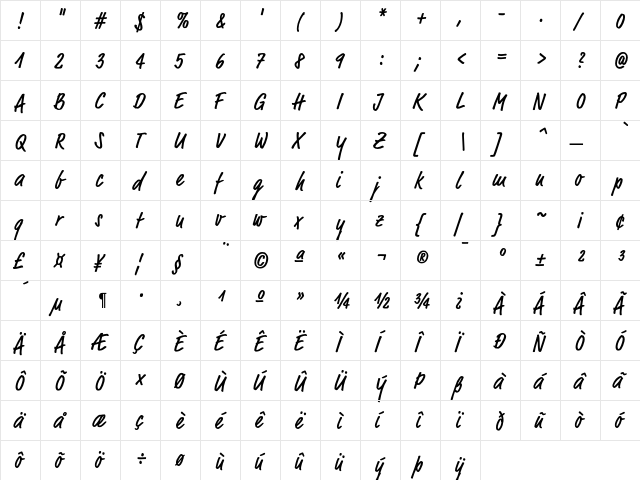
Market CondensedMedium Font Preview
Market CondensedMedium
Design Context for Market Typeface
Market is a composed and adaptable typeface that performs quietly and consistently across a wide range of design contexts. Its narrow stance lets it pack a punch even in space-constrained designs.